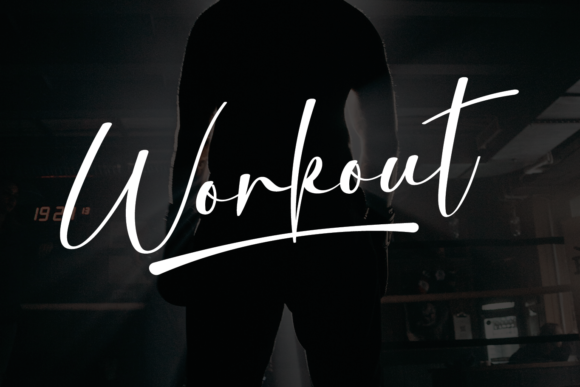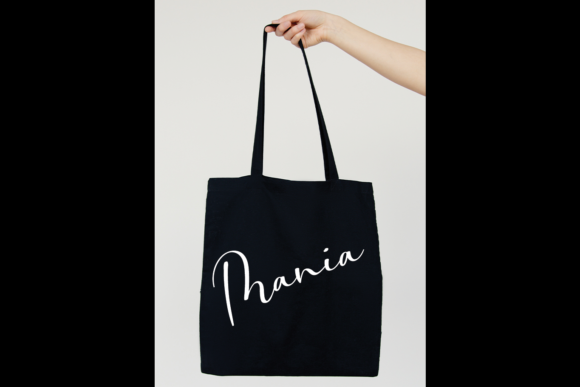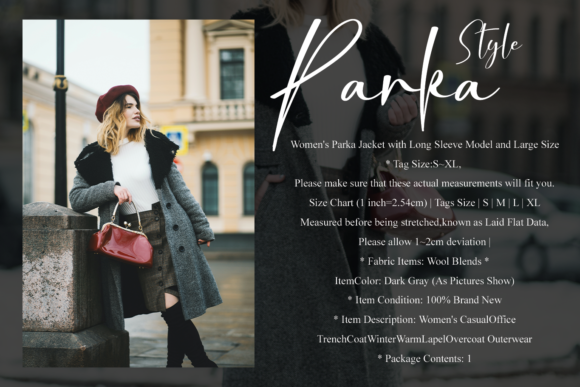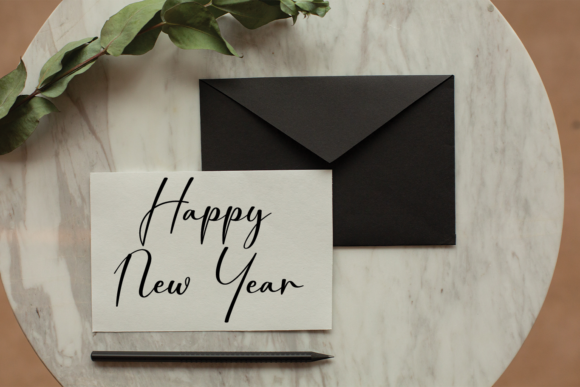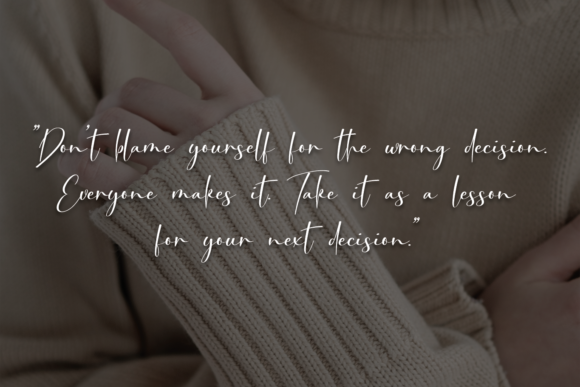
Workout Font
About Workout Font
Workout is a lovely and timeless handwritten font. It is the best choice for creating eye catching logos, branding and quotes. Every letter has a unique and beautiful touch, which will make your design come alive!